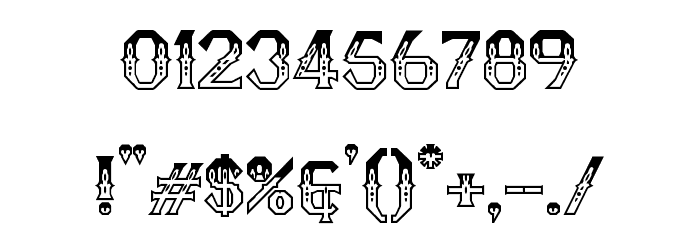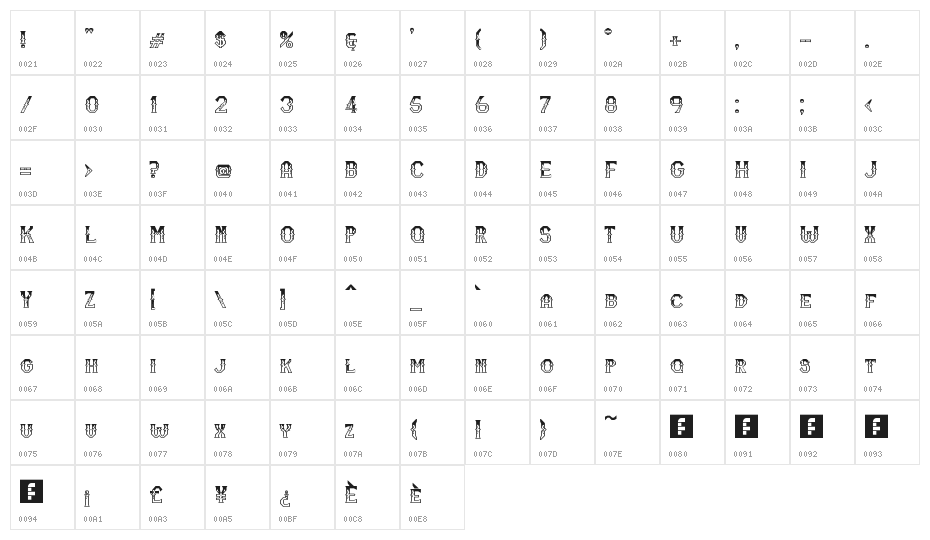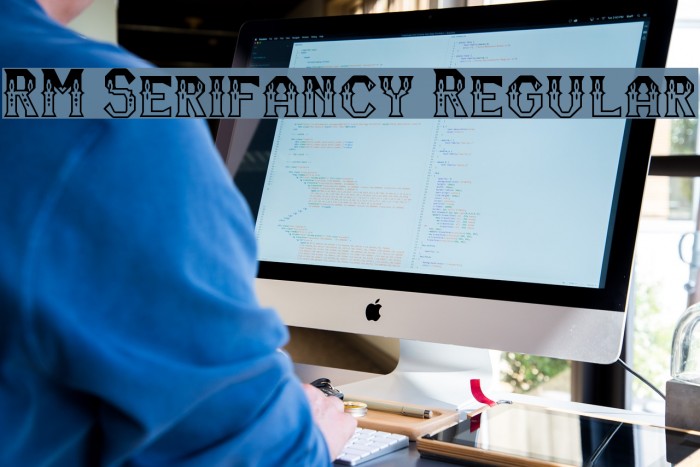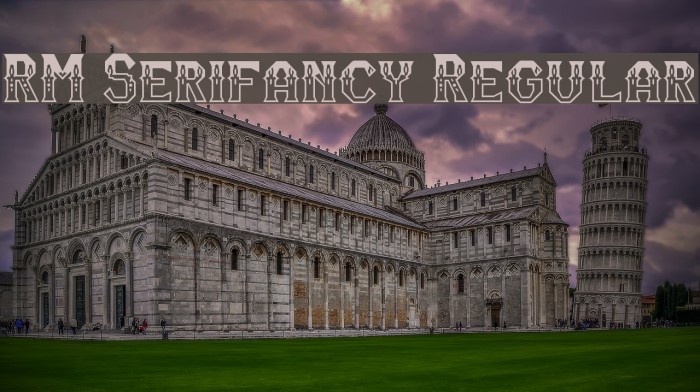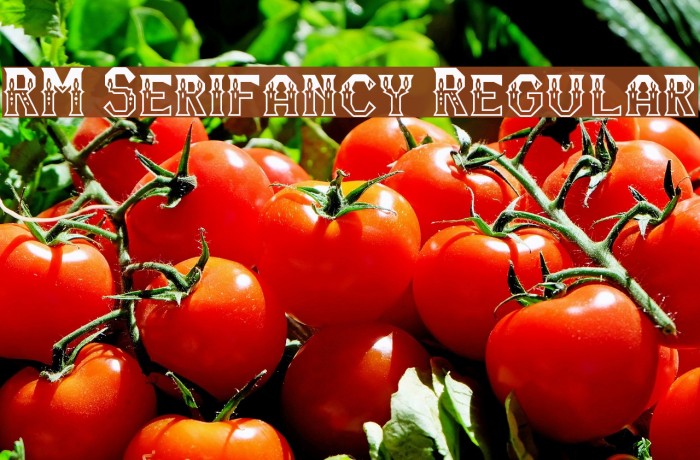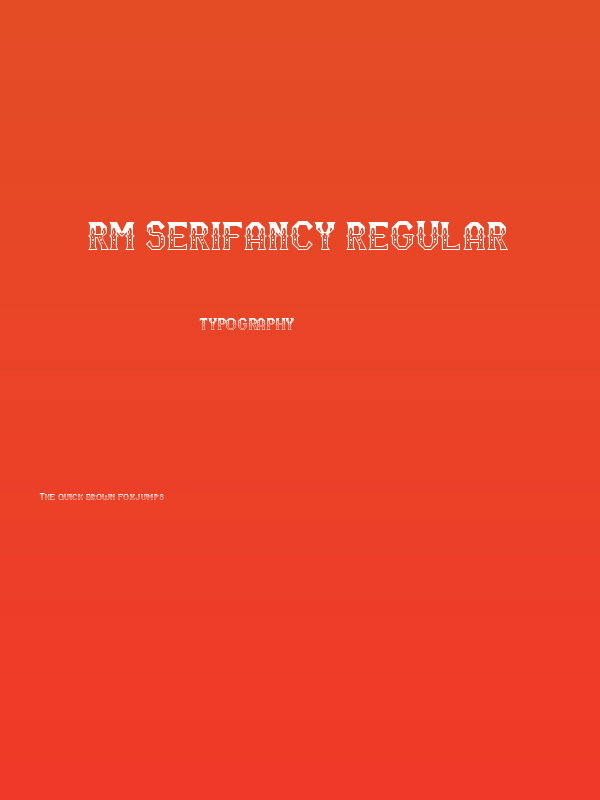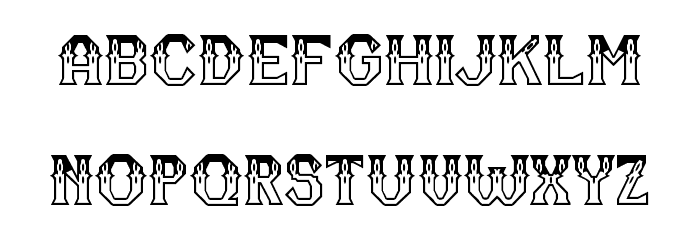
RM Serifancy Regular Font
RM Serifancy Regular Description
This font features a unique and intricate design with a decorative flair. Each character is adorned with ornamental elements, giving it a distinct and artistic appearance. The uppercase and lowercase letters maintain a consistent style, with bold outlines and detailed embellishments that create a striking visual impact. Numbers and special characters follow the same decorative theme, ensuring uniformity across all glyphs. The font's elaborate design makes it ideal for projects that require a touch of elegance and sophistication, such as invitations, posters, and branding materials. Its distinct style is sure to capture attention and add a creative edge to any design.
| Proposed Projects | Ideal for invitations, posters, branding, and any project requiring a decorative touch. |